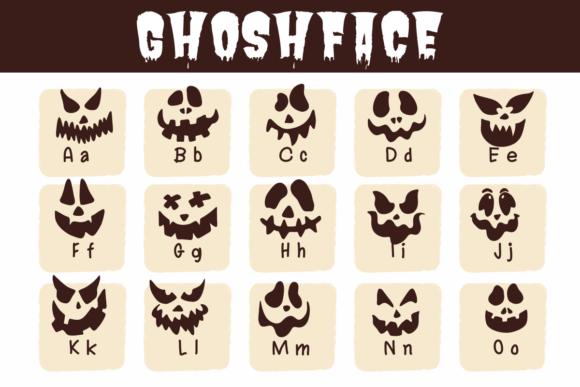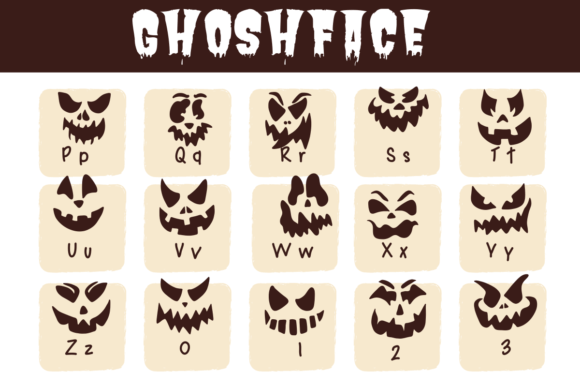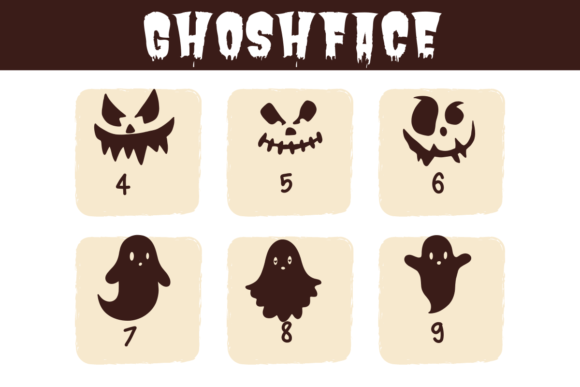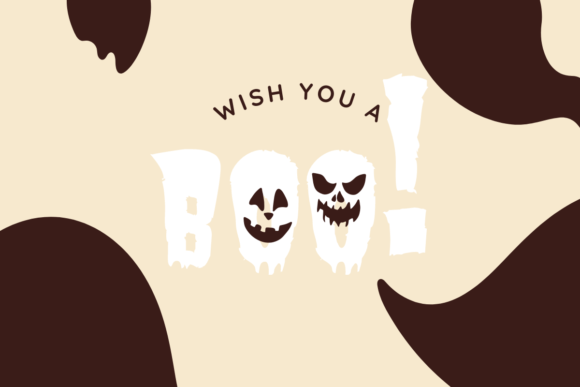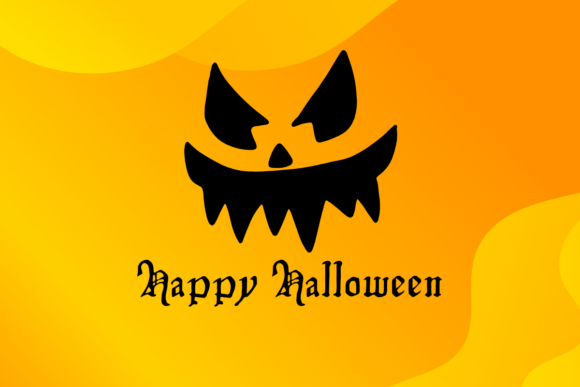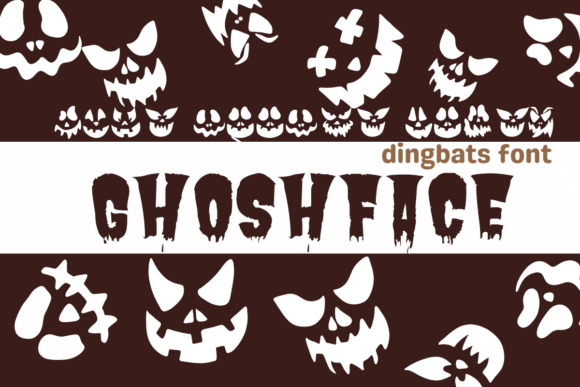
Introducing Ghoshface Font: Elevate Your Creative Projects with a Unique Sketch Style
Are you a designer, crafter, or DIY enthusiast looking for a font that can add a personal touch to your creative projects? Look no further than Ghoshface Font, a dingbats font with a theme that features a charming sketch style. This versatile font is perfect for a wide range of applications, from wedding invitations and decorations to logos and crafts.
What is Ghoshface Font?
Ghoshface Font is a dingbats font that offers a unique and creative way to add visual interest to your projects. Unlike traditional fonts, dingbats fonts feature symbols, icons, and illustrations rather than letters and numbers. Ghoshface Font takes this concept to the next level with its sketch style theme, which gives it a hand-drawn and organic feel.
Key Features of Ghoshface Font
- Sketch Style: Ghoshface Font features a charming sketch style that adds a personal touch to your projects.
- Dingbats Theme: This font includes a wide range of symbols, icons, and illustrations that can be used to enhance your creative projects.
- Versatile: Ghoshface Font can be used for a variety of applications, including wedding invitations, DIY projects, crafts, decorations, logos, and more.
Creative Ways to Use Ghoshface Font
Ghoshface Font is a versatile font that can be used in a wide range of creative projects. Here are some ideas to get you started:
- Wedding Invitations: Add a personal touch to your wedding invitations with Ghoshface Font’s charming sketch style.
- DIY Projects: Use Ghoshface Font to add a unique and creative element to your DIY projects, such as scrapbooking, card making, and more.
- Crafts: This font is perfect for crafters who want to add a personal touch to their projects, such as knitting patterns, sewing projects, and more.
- Decorations: Use Ghoshface Font to create custom decorations, such as wall art, signs, and more.
- Logos: This font can be used to create unique and memorable logos for businesses, events, and more.
Tips for Using Ghoshface Font
Here are some tips for getting the most out of Ghoshface Font:
- Experiment with Different Sizes: Ghoshface Font can be used at a variety of sizes, from small icons to large headings.
- Combine with Other Fonts: This font can be paired with other fonts to create a unique and visually interesting design.
- Use for Headings and Titles: Ghoshface Font is perfect for headings and titles, where its sketch style can add a touch of personality.